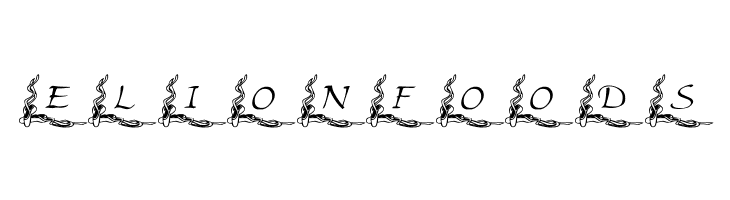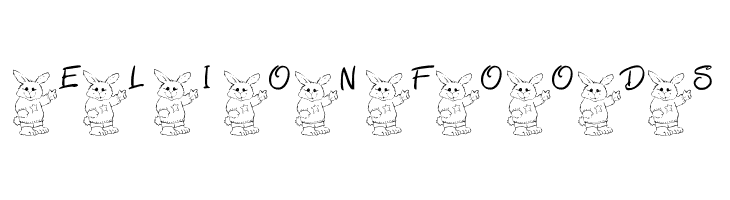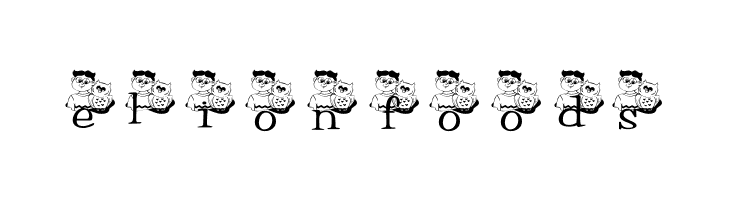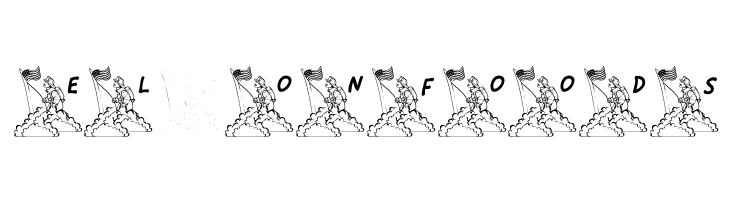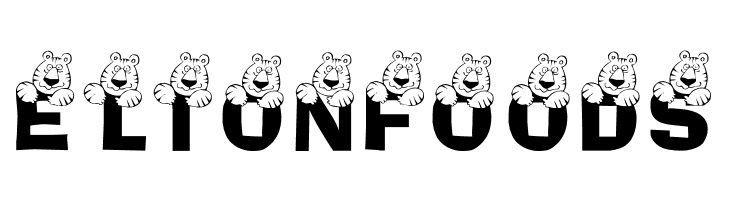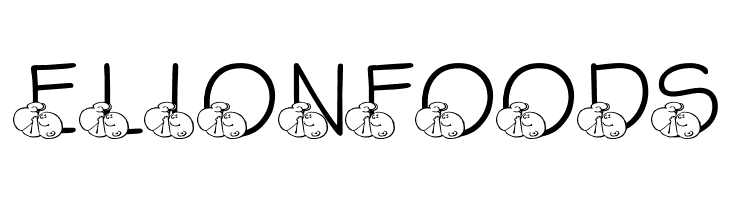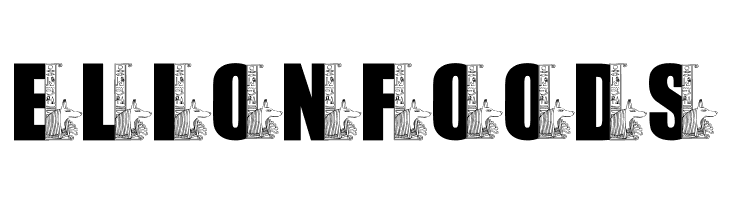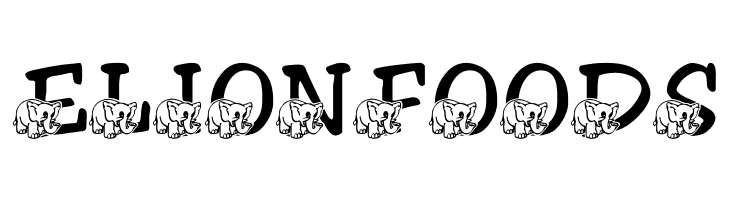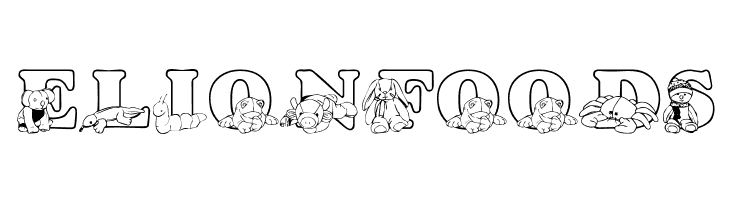
A playful font with cartoon characters accompanying each letter.
A decorative serif font with angel illustrations accompanying each character.
A decorative font with characters accompanied by flag-waving illustrations.
A bold, playful font with cartoon tiger illustrations accompanying each character.
A playful font with baby illustrations accompanying each character, perfect for child-themed projects.
A bold, decorative font with Egyptian-themed illustrations accompanying each letter.
A bold, playful font with elephant illustrations accompanying each letter.
A playful font with bold letters and charming animal illustrations.
An elegant, decorative font with intricate vine-like borders around each character.
A playful font with cartoon bunnies accompanying each character.